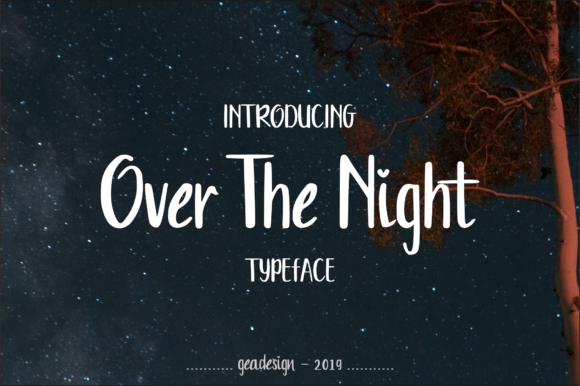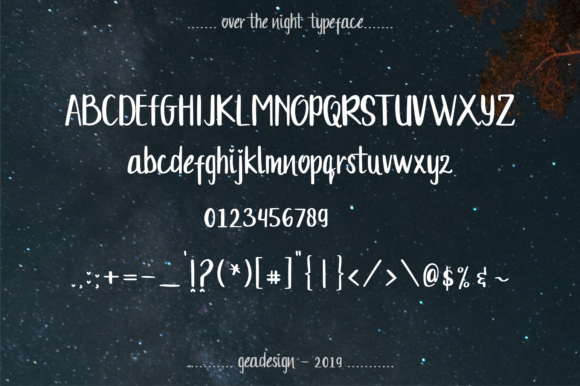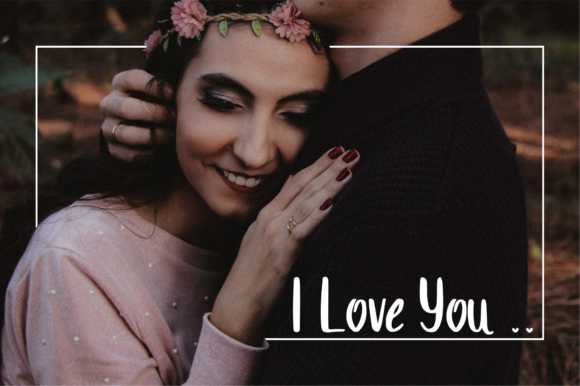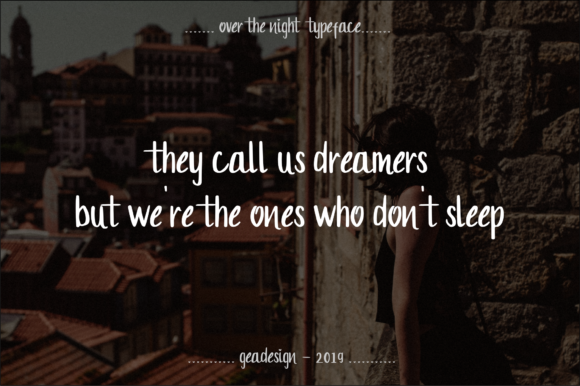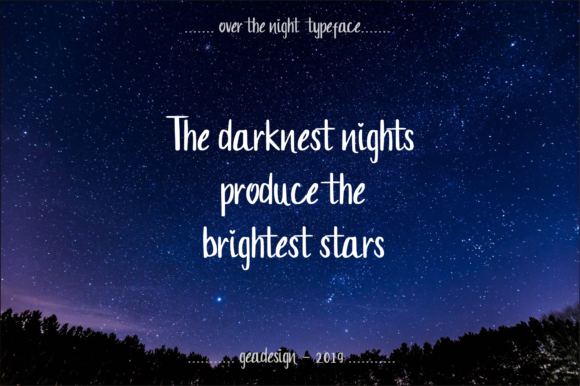
Over the Night Font
About Over the Night Font
The Over The Night is a simple and lovable font. It has a natural handwritten style and is perfect for adding some love and sweetness to your designs.